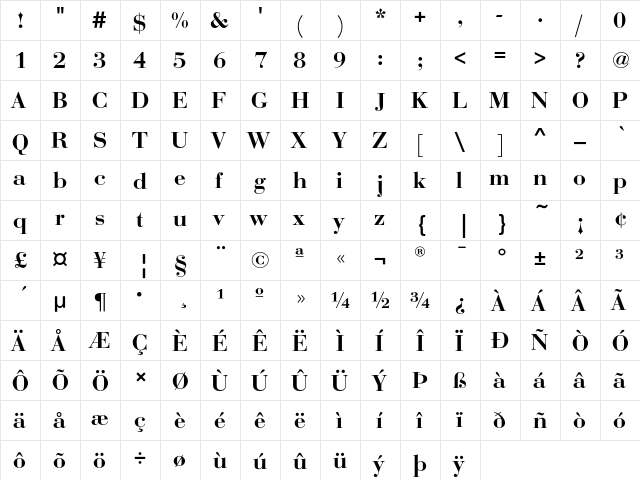
BauerBodoniEF Medium
Design Context for BauerBodoniEF Typeface
BauerBodoniEF offers clean, dependable letterforms without strong stylistic allegiance, making it a practical choice for designers who need flexibility.